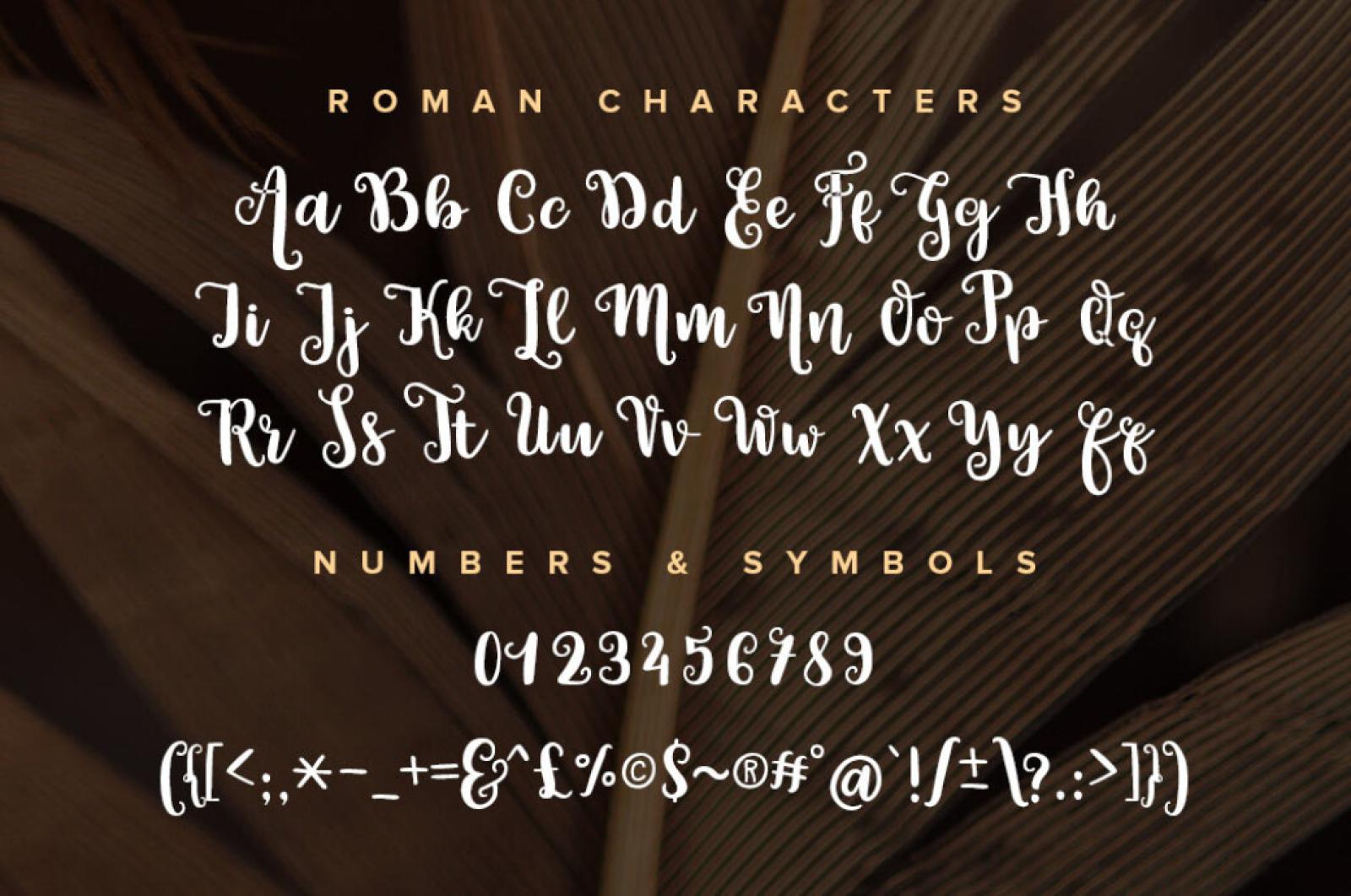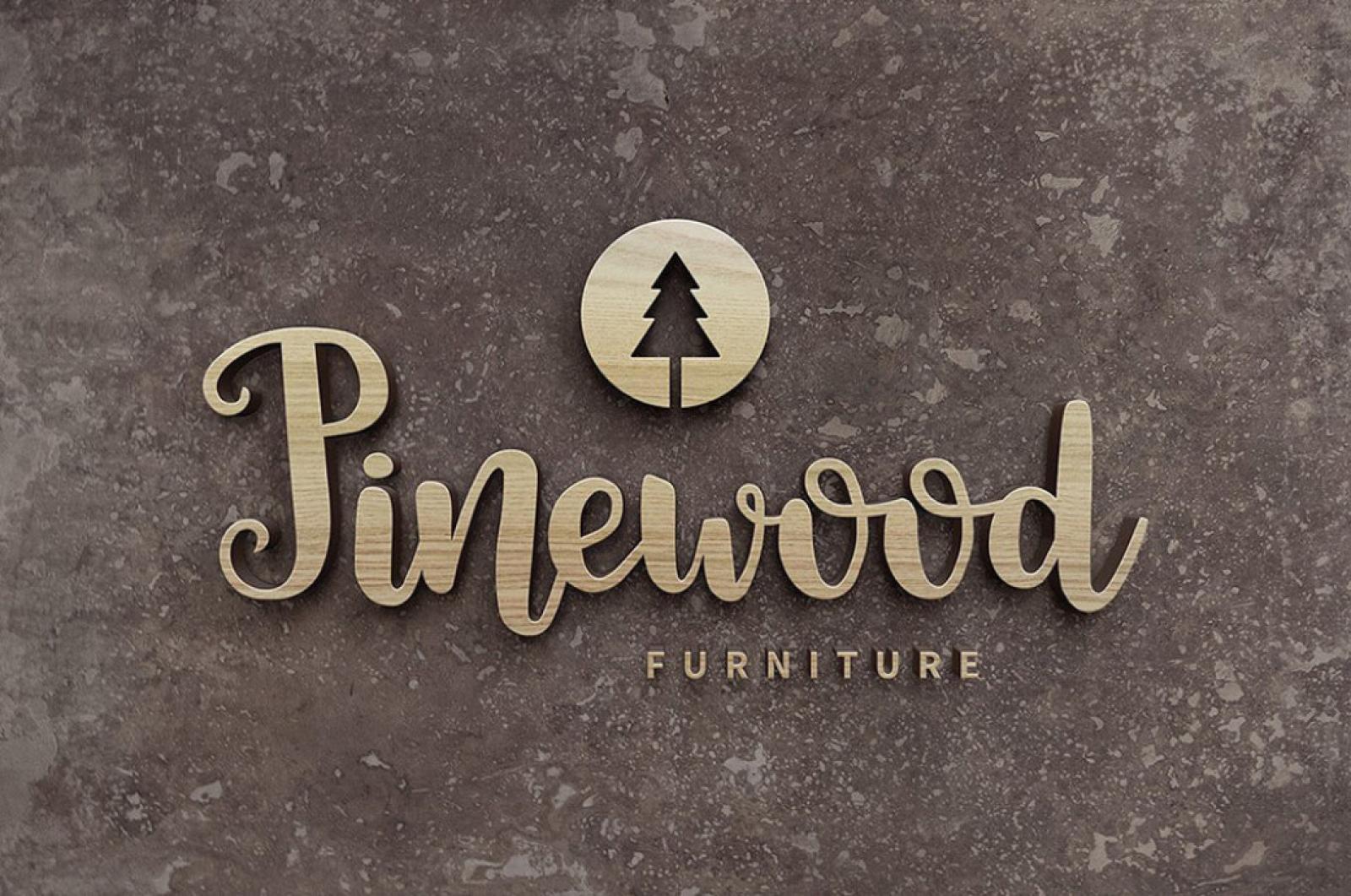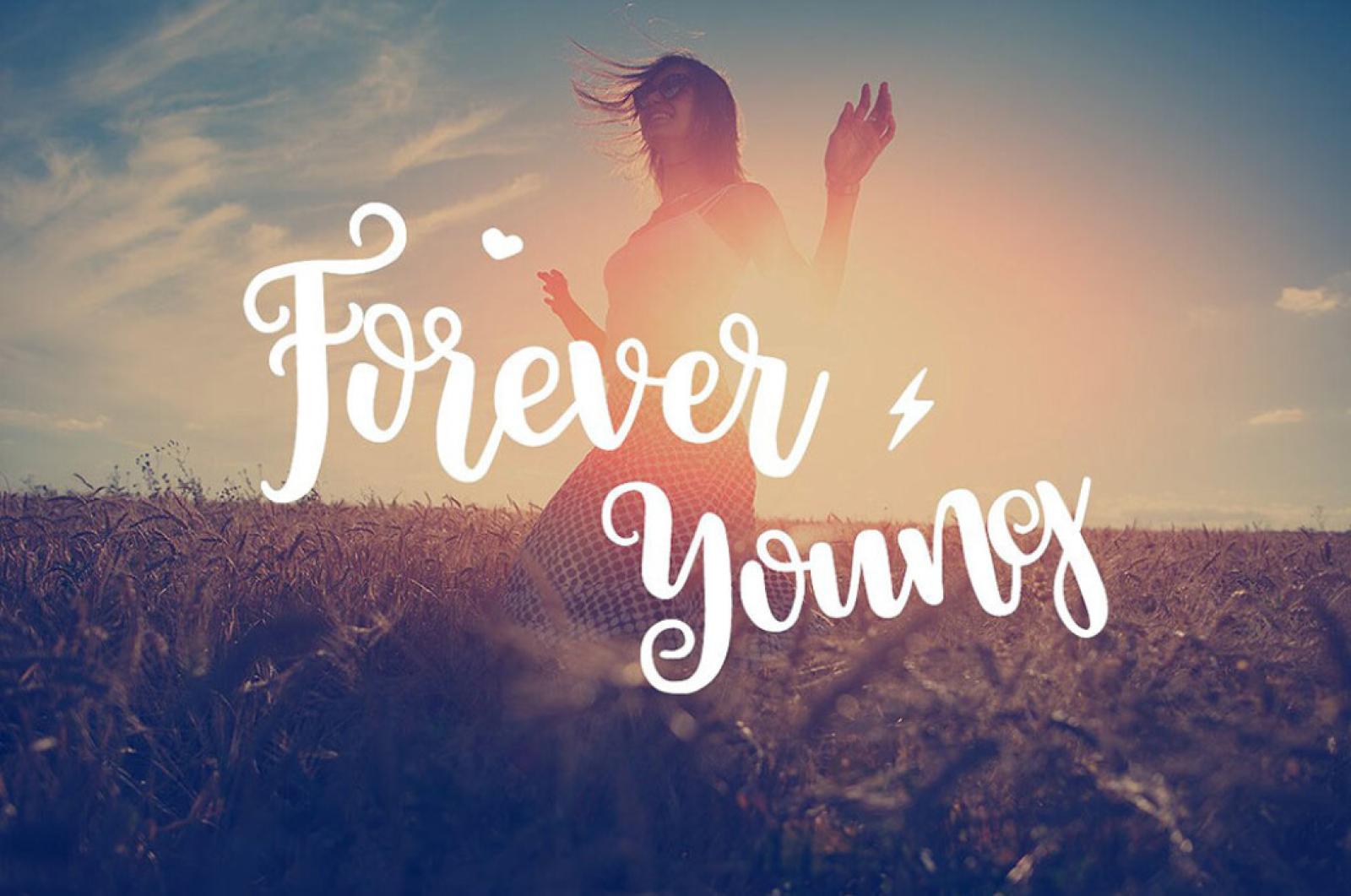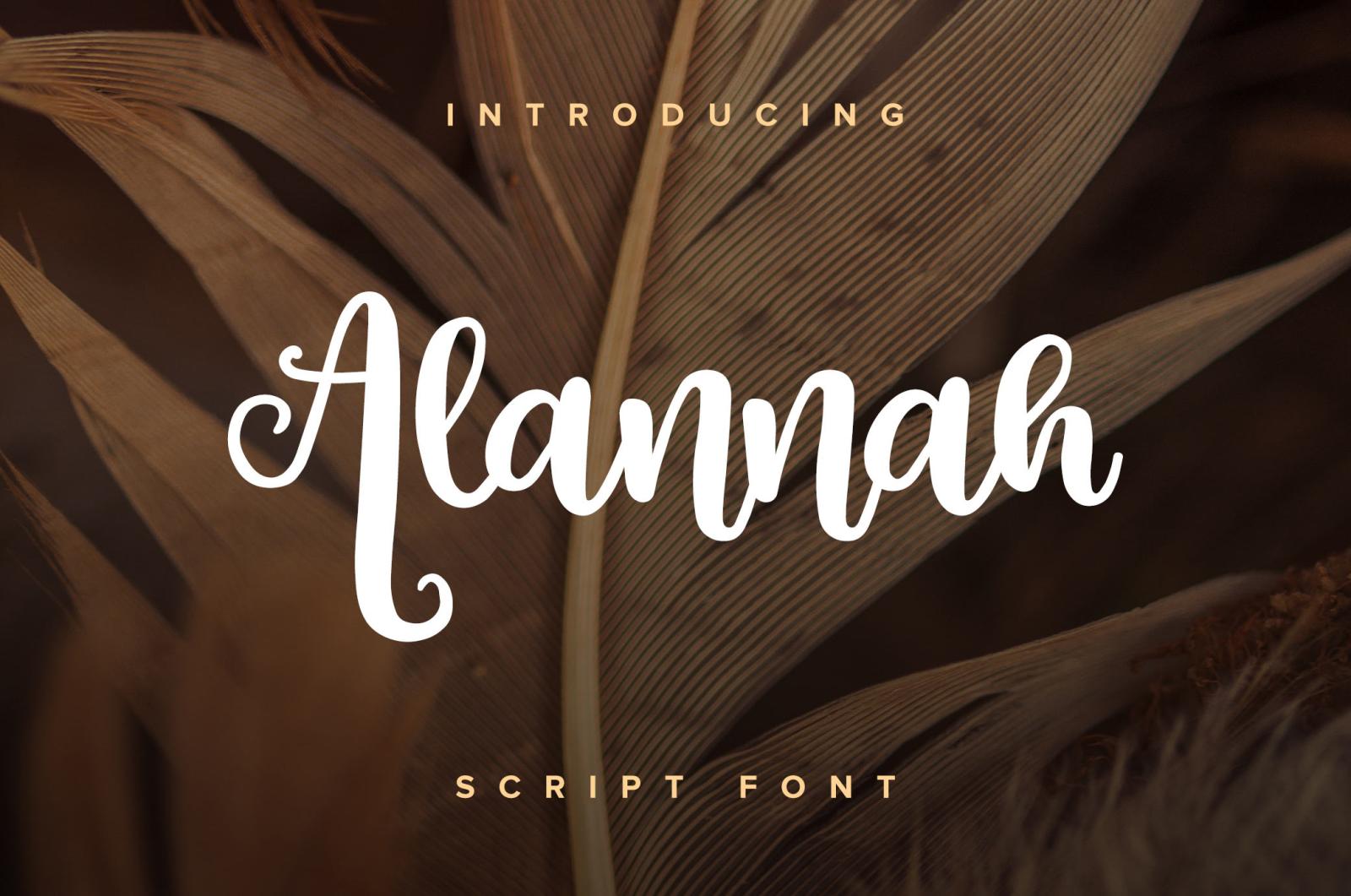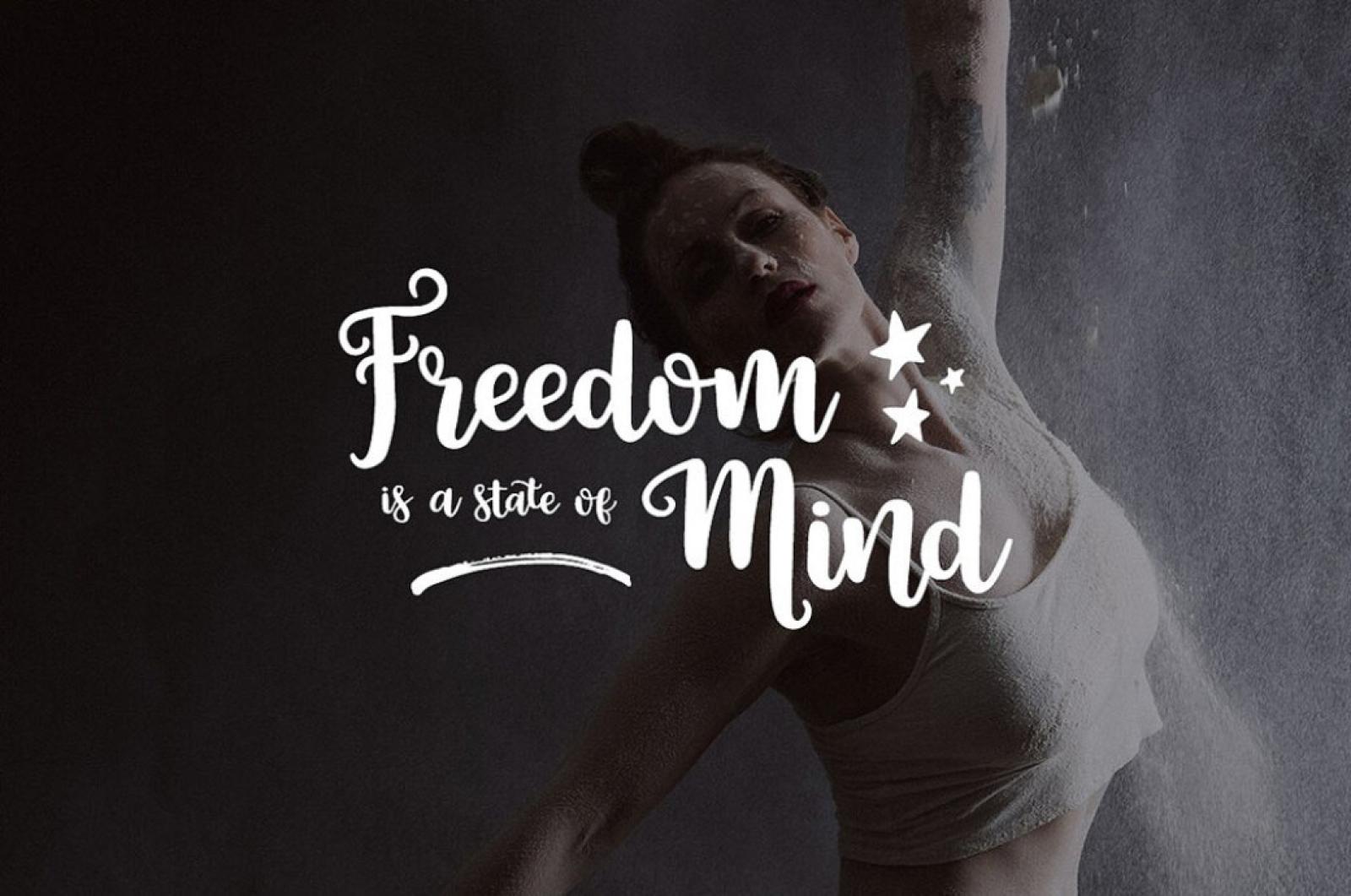
Alannah Script Font
Time to bring you the typeface were so proud of - our first typeface ever to be exact. Its so joyful and smooth that no one can resist its genuine hand-lettered appearance.
Both eco and vogue, it will precisely complement any of your brilliant artworks. Moreover, a vast international language support and rich Open Type features are the invaluable tools to bring you to the new level. No limits, no restrictions, no laws - you just release your creativity and stun your community with projects in a million.